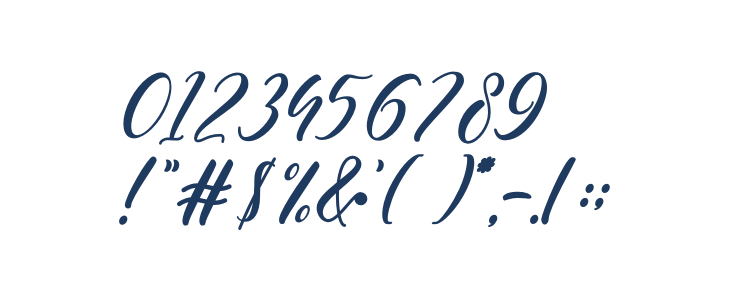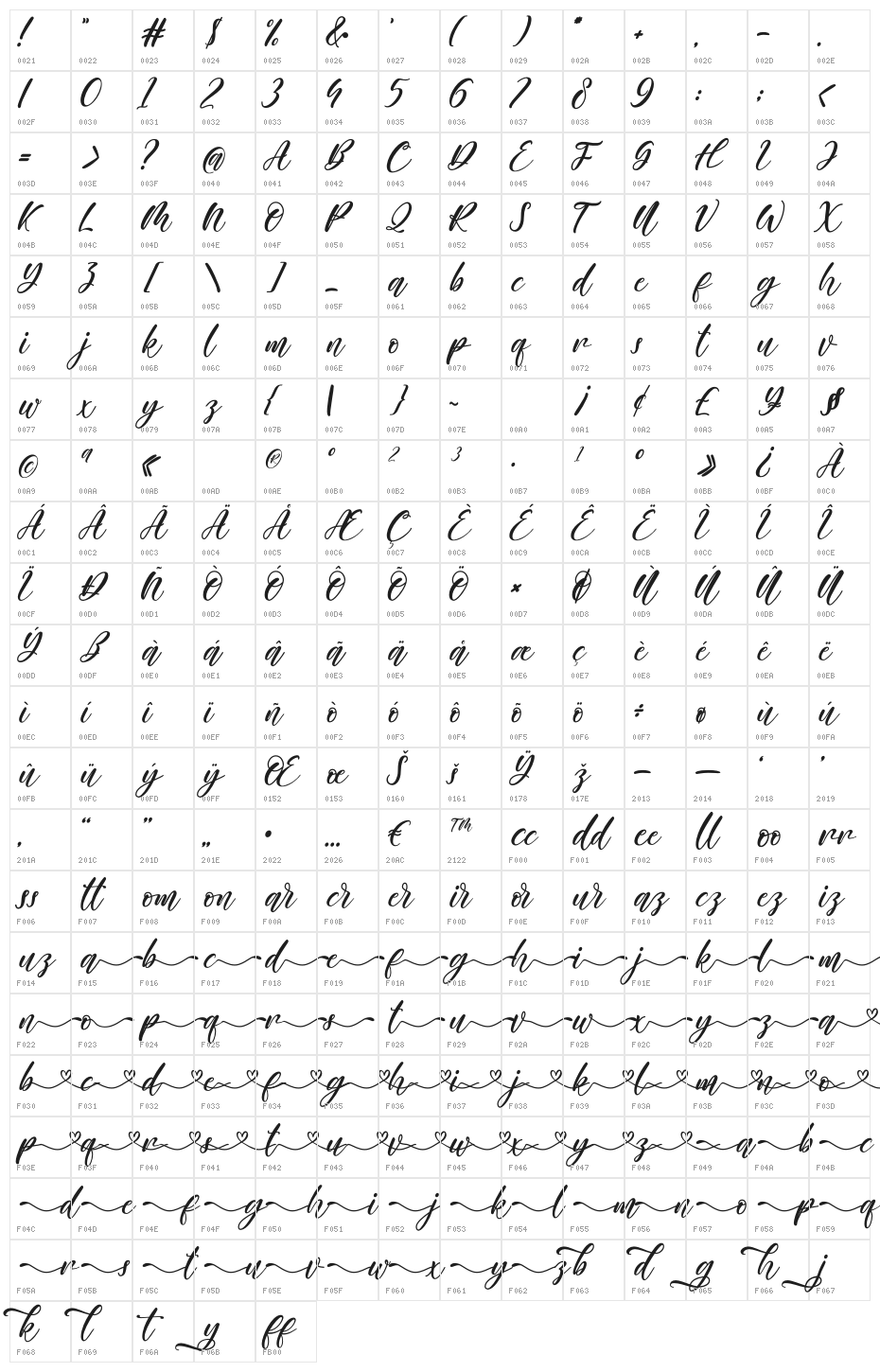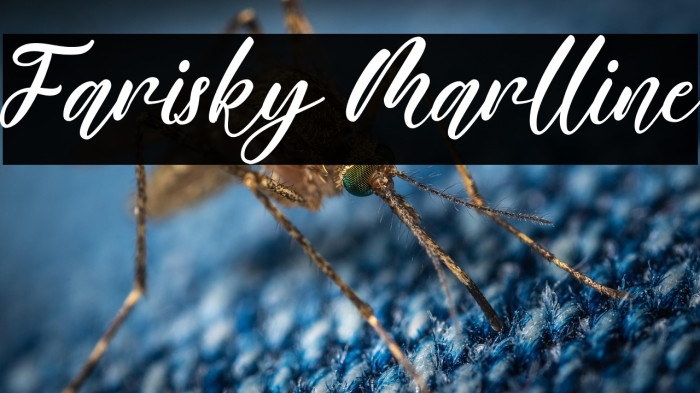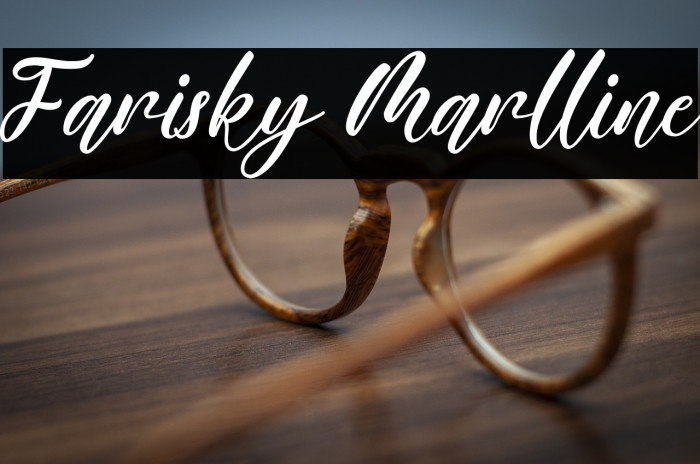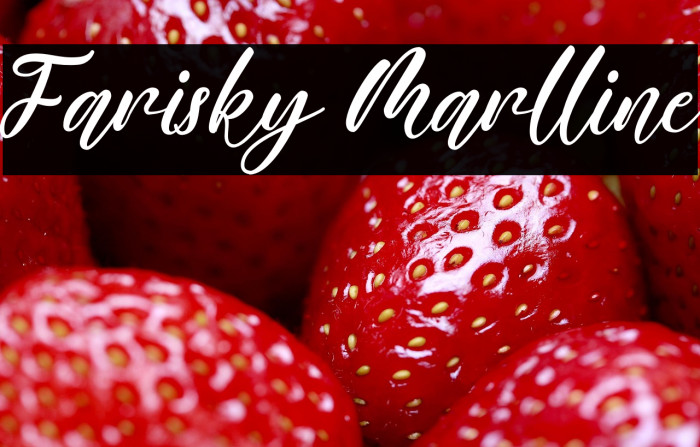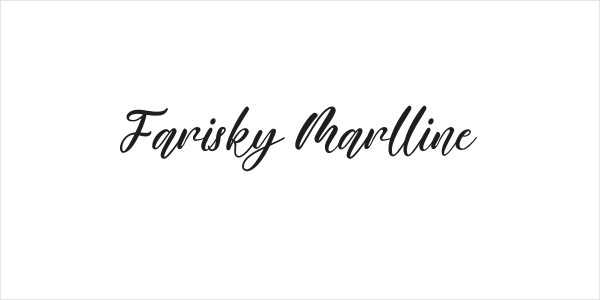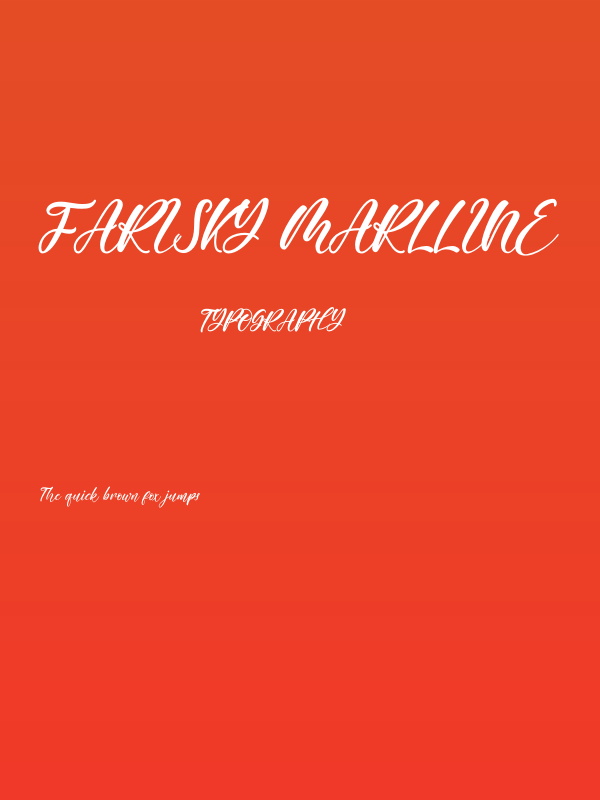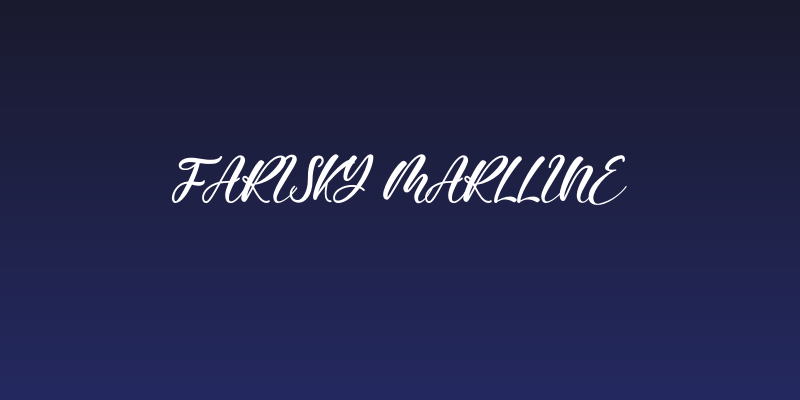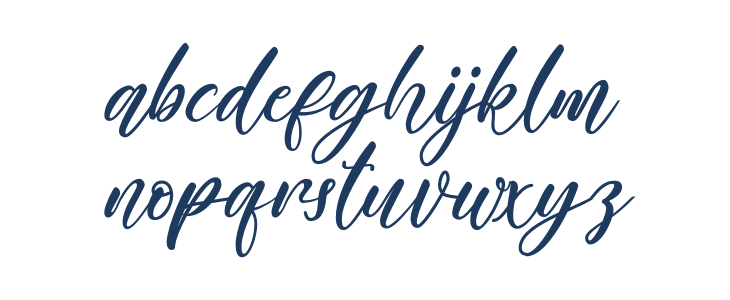
Farisky Marlline Font
Farisky Marlline Description
This font exudes a lively and elegant script style, characterized by its flowing, cursive letters that mimic the fluidity of handwriting. The uppercase letters are bold and sweeping, with dramatic loops and flourishes that add a sense of movement and grace. The lowercase letters maintain a consistent rhythm, with smooth connections and rounded forms that enhance readability. Numbers and special characters are crafted with the same attention to detail, ensuring a cohesive look across all text elements. The overall appearance is both sophisticated and approachable, making it suitable for a variety of design applications.
| Overall Style | Elegant, Decorative |
| Use Case | Logos, Invitations, Signage |
| Proposed Projects | Ideal for wedding invitations, greeting cards, branding projects, and elegant signage. |